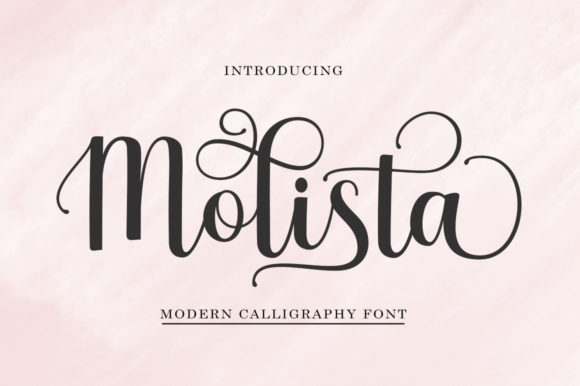
Journey into the world of elegance and sophistication with Molista Font, a breathtaking script font family designed to leave a lasting impression. Created by the talented LetterFreshStudio, Molista is a symphony of beauty and grace, crafted to add a touch of luxury to your creative endeavors.
Immerse yourself in the world of Molista, where each letter is a work of art, meticulously designed to evoke a sense of sophistication and charm. Allow your designs to exude a timeless elegance, as Molista's flowing strokes and delicate curves capture the essence of timeless beauty.
Indulge in the versatility of Molista, a font that transcends boundaries. Whether you're crafting wedding invitations, branding materials, or social media graphics, Molista seamlessly blends with your vision, elevating your designs to new heights. Embrace the power of expression, as Molista's graceful lines and stunning impact transform your words into captivating works of art.
With Molista, the possibilities are endless. Unleash your creativity and explore the depths of your imagination. Allow this font to be your guiding light, illuminating your path to design excellence. Experience the joy of creating with Molista, and let your designs speak volumes, leaving a lasting impression on your audience.
As a PUA-encoded font, Molista grants you effortless access to a treasure trove of glyphs and ligatures. Dive into a world of customization, where you can effortlessly add intricate details and expressive flourishes to your designs. With Molista, you hold the key to unlocking a universe of typographic possibilities, shaping your words into captivating masterpieces.
Make Molista your weapon of choice in the battle for design supremacy. Let its elegance ignite your creative spark and set your designs ablaze with brilliance. Embrace the allure of Molista, a font that embodies excellence, and elevate your projects to the realm of the extraordinary.